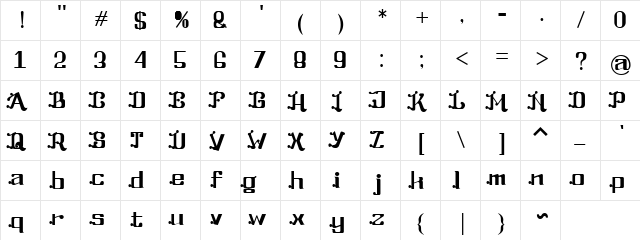
Best Part Regular
Design Context for Best Part Typeface
Best Part is a composed and adaptable typeface that performs quietly and consistently across a wide range of design contexts.